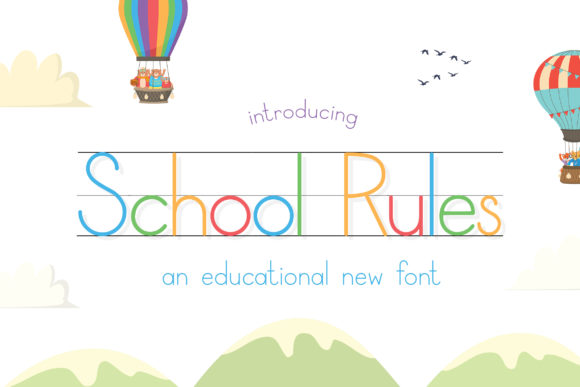
Are you tired of your school reports looking dull and uninspiring? Look no further! Introducing School Rules Font, the ultimate solution to elevate your school projects to a whole new level of creativity and professionalism. Created by the renowned Salt and Pepper Fonts, this minimal and neat sans serif font is the perfect choice for students, teachers, and anyone looking to make their work shine.
With its clean and modern design, School Rules Font effortlessly catches the eye and adds a touch of sophistication to any project. Whether you're working on essays, presentations, posters, or even invitations, this font will make your content look sleek and polished. Say goodbye to boring and hello to captivating!
But what sets School Rules Font apart from the rest? Its versatility! This font seamlessly blends with an incredibly large set of projects, giving you endless possibilities to showcase your creativity. From academic papers to art projects, this font will effortlessly adapt to any style and theme, making your work truly unique.
Not only does School Rules Font offer aesthetic appeal, but it also enhances readability. Its clear and legible characters ensure that your audience can easily absorb and comprehend your content. No more struggling to decipher messy handwriting or squinting at tiny fonts. School Rules Font ensures that your message is delivered loud and clear.